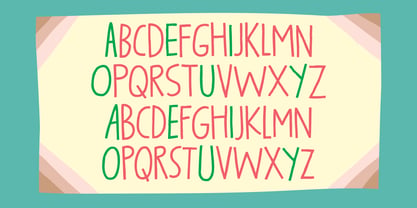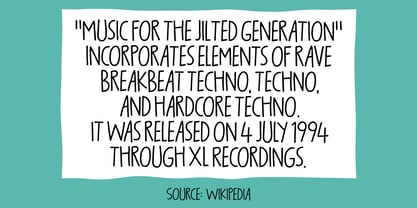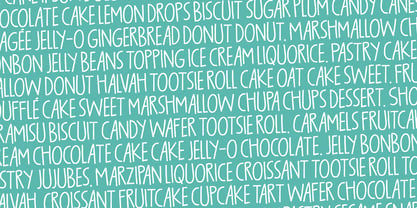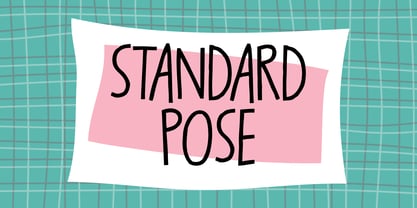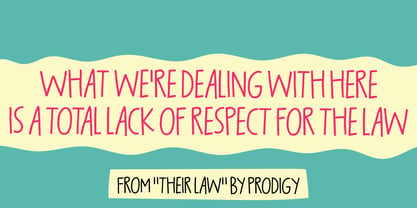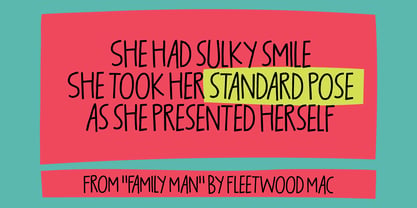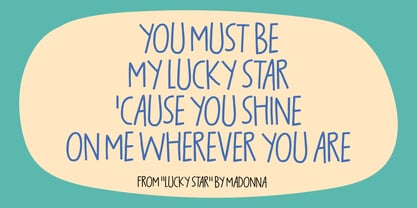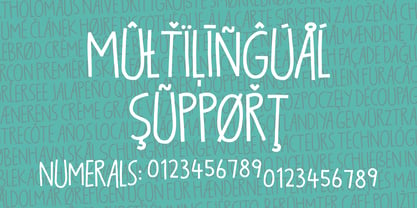
Standard Pose
by Bogstav
The Standard Pose Font Family was designed by Jakob Fischer and published by Bogstav. Standard Pose contains 2 styles and family package options. More about this family
Standard Pose is a line from one of my favorite Fleetwood Mac songs - Family man.
Here you have a tall, all caps typeface with lots of bouncy glyphs and lots of diacritics. Upper and lower case have been designed to mingle, so have a ball!